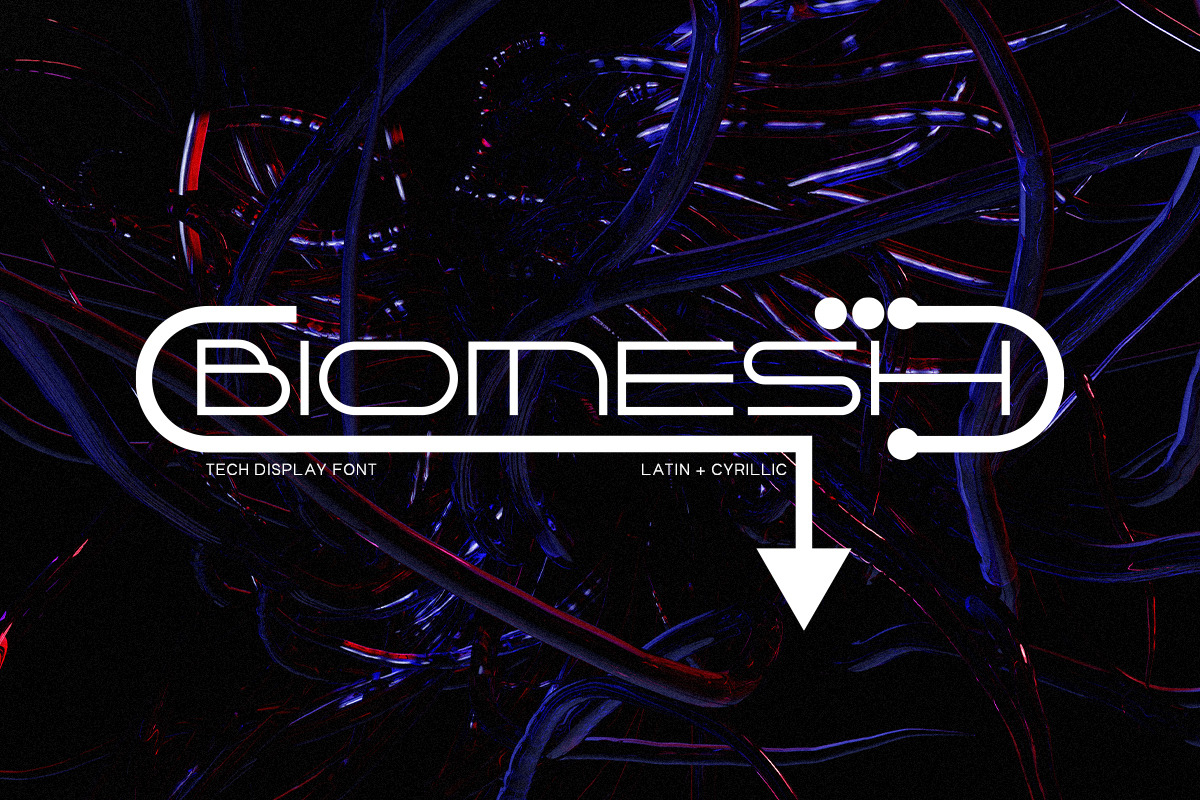
Biomesh - Tech Display Font
Unleash the power of visual with Biomesh, the cutting-edge tech display font that effortlessly merges form and function. With its sleek and futuristic design, Biomesh is the epitome of modernity, capturing the essence of the digital age.
Biomesh seamlessly blends Latin and Cyrillic alphabets, ensuring a harmonious synergy for creators around the globe. This font's versatility knows no bounds, making it the perfect choice for tech-related projects, websites, branding, and more.
- A-Z
- A-Я
- Base symbols